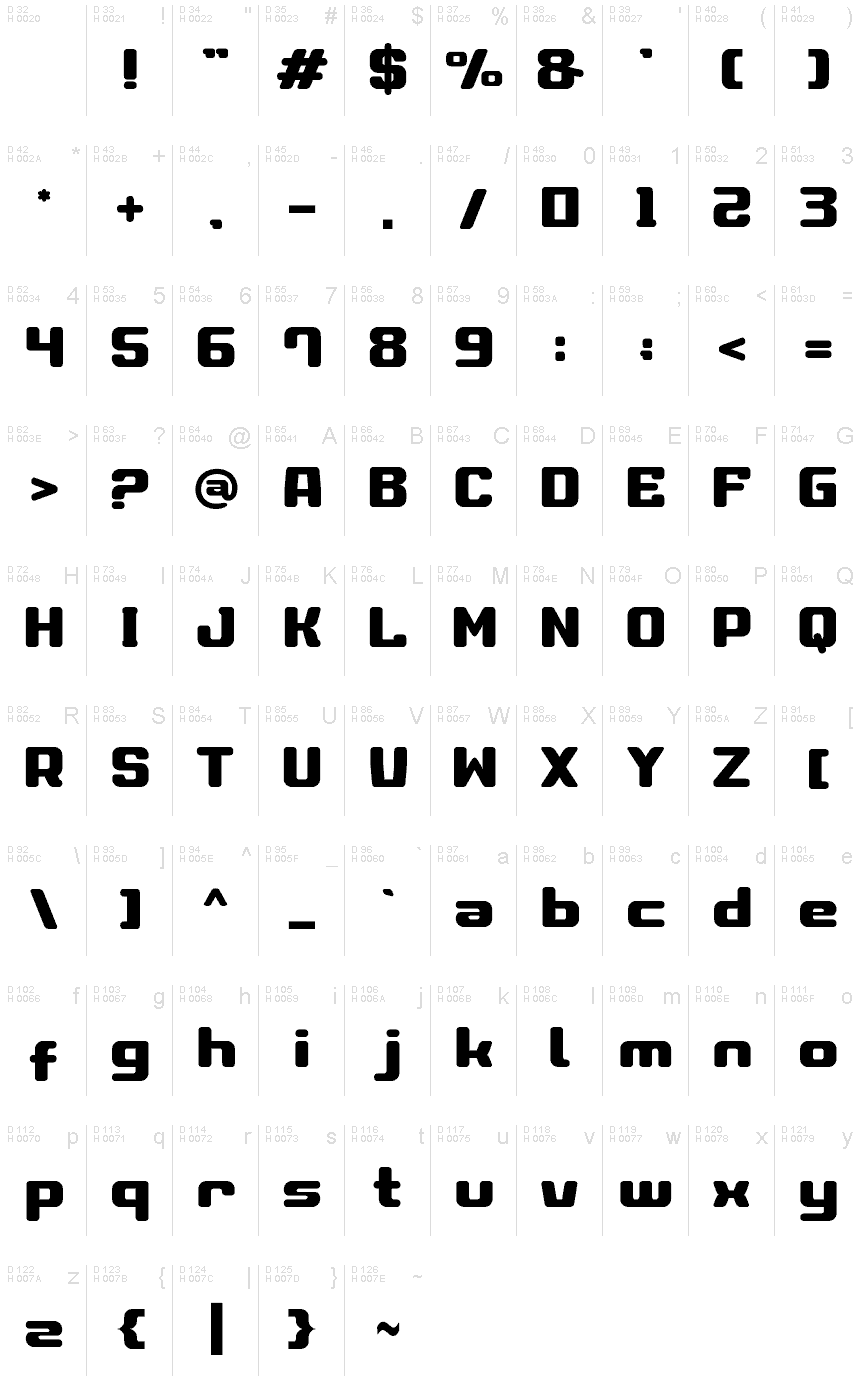
Sportex Workout
Sportex Workout font by Qr Design is an expanded bold display font that communicates a strong message with every word. Its design style is geometric-inspired, therefore, making the rounded letterforms look neat and uniform. The style of its outlines swings towards futuristic and modern which makes the typeface fit for the latest design trends as well as long-term use.
Projects this free display font is suitable for include logo, sport branding, advertising banners, social media covers or posts, product labels and much more. Sportex Workout can be used for both print projects like magazines and online projects like websites.